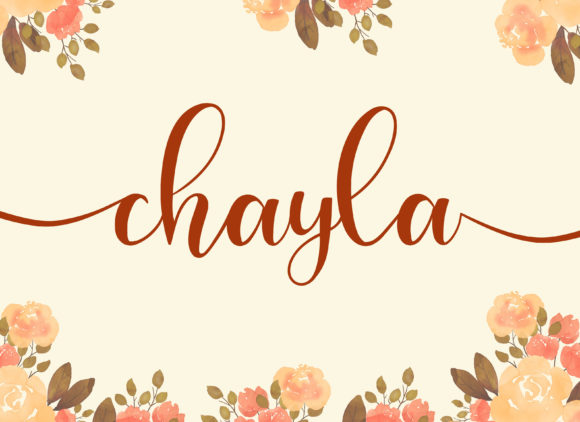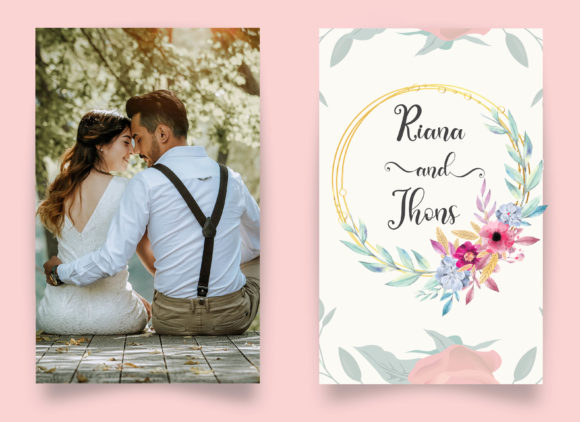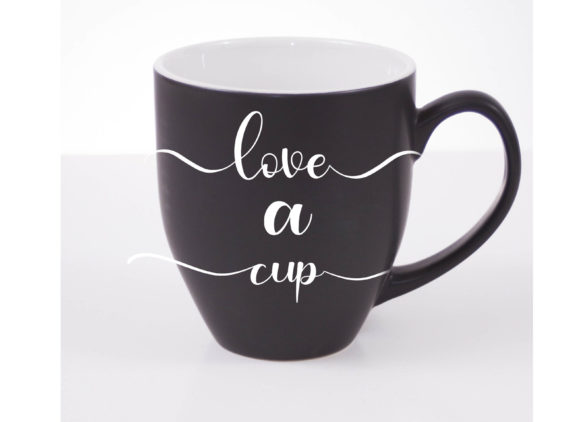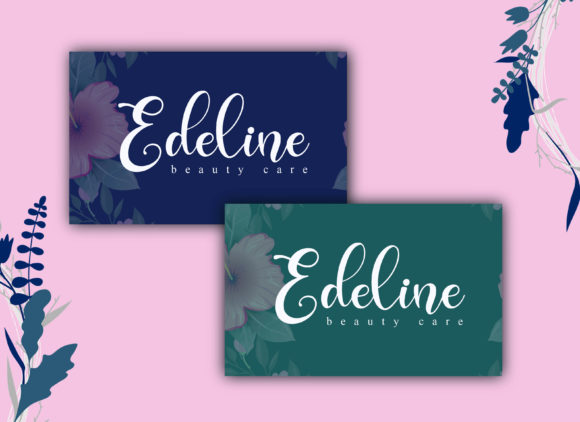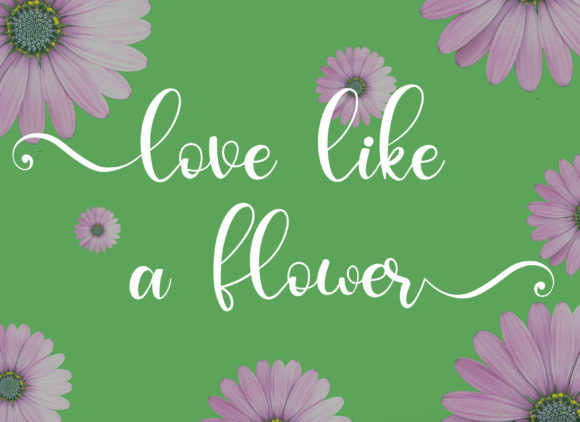
Chayla Font
About Chayla Font
Chayla embodies fun, quirkiness and authenticity. This enchanting script font will turn any creative idea into a true standout. Clean and a little bit quirky, this font is the perfect fit for all of your logos, branding, social media, and crafty DIY projects.